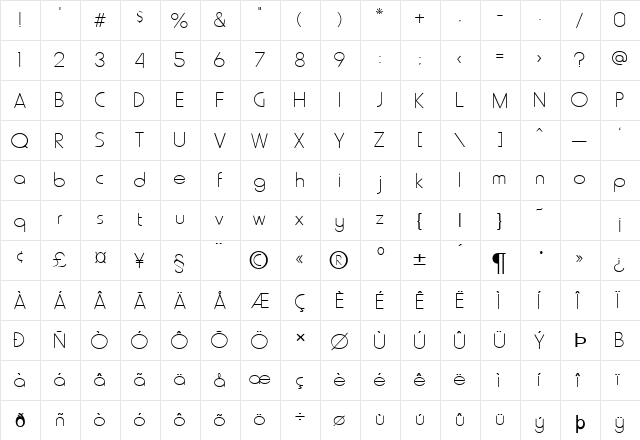
Metro Normal Font Preview
Metro Normal
Metro Normal Font Details
Design Context for Metro Typeface
Metro is a composed and adaptable typeface that performs quietly and consistently across a wide range of design contexts.